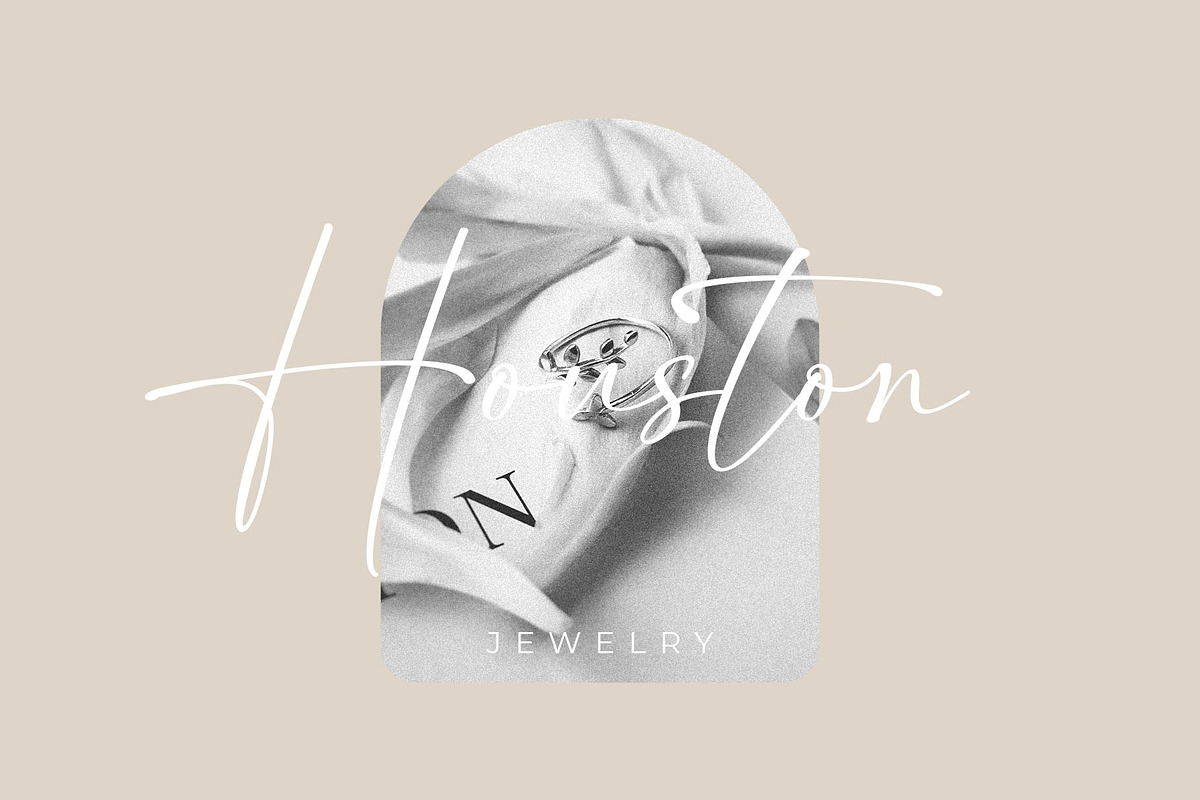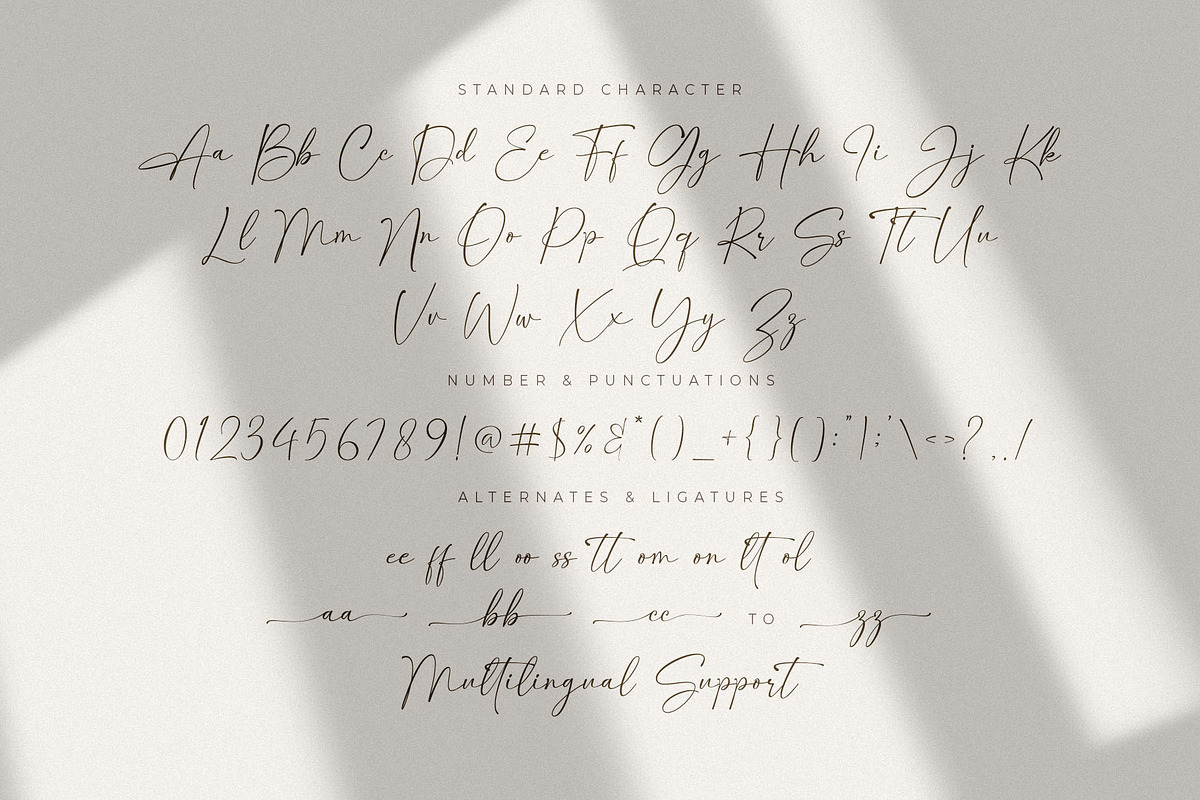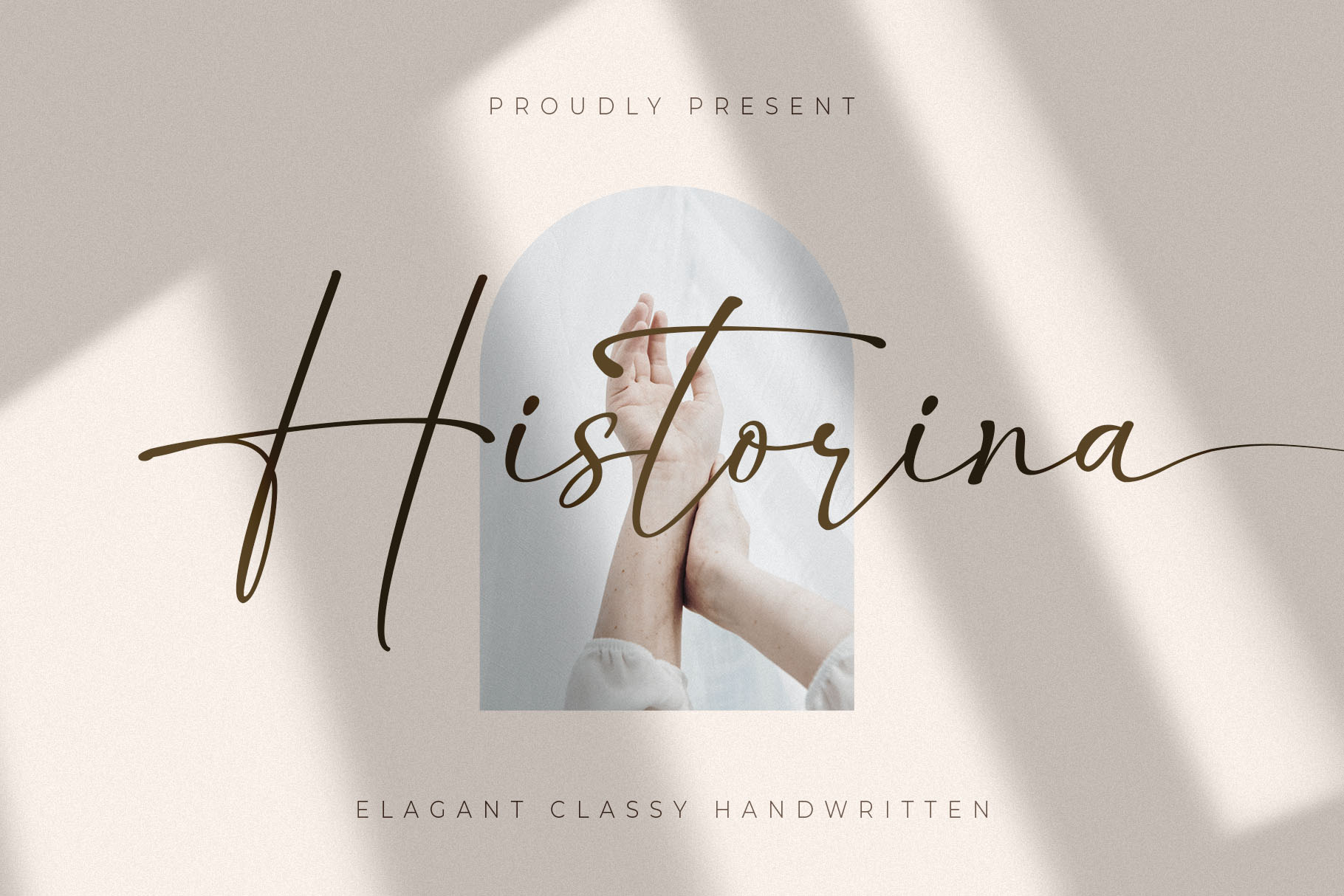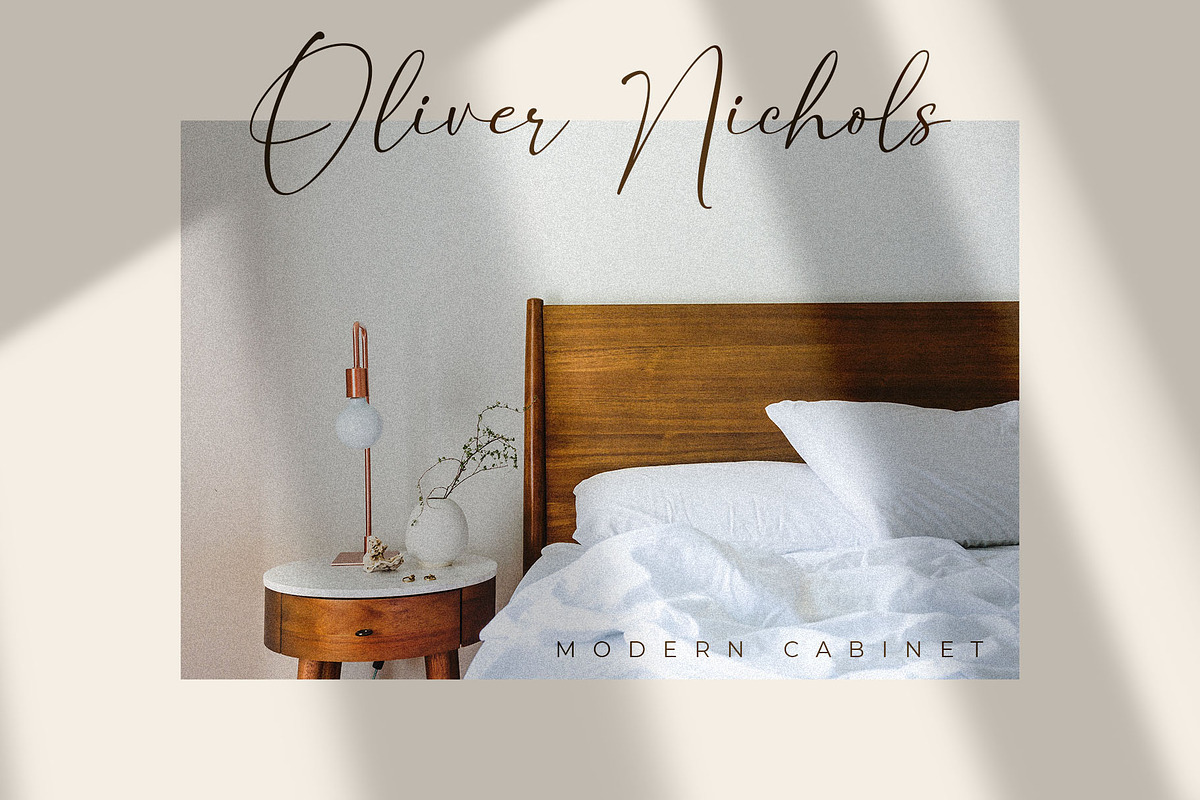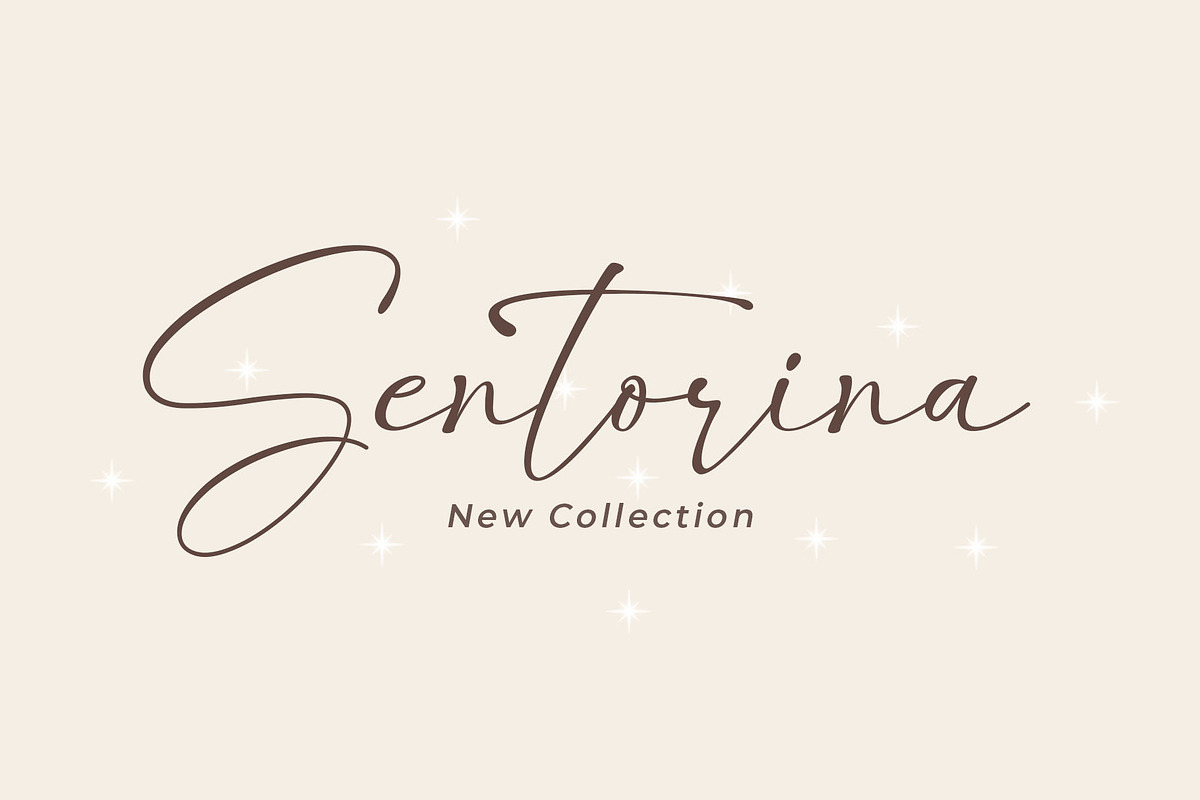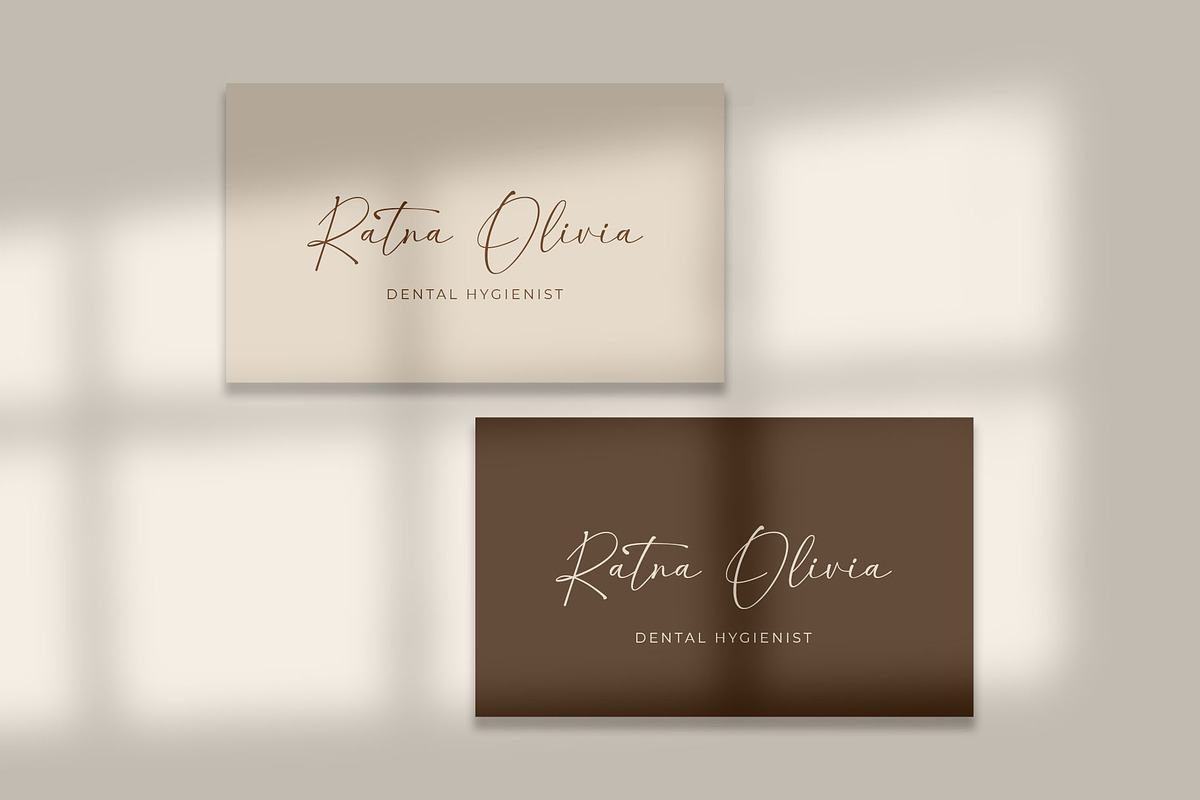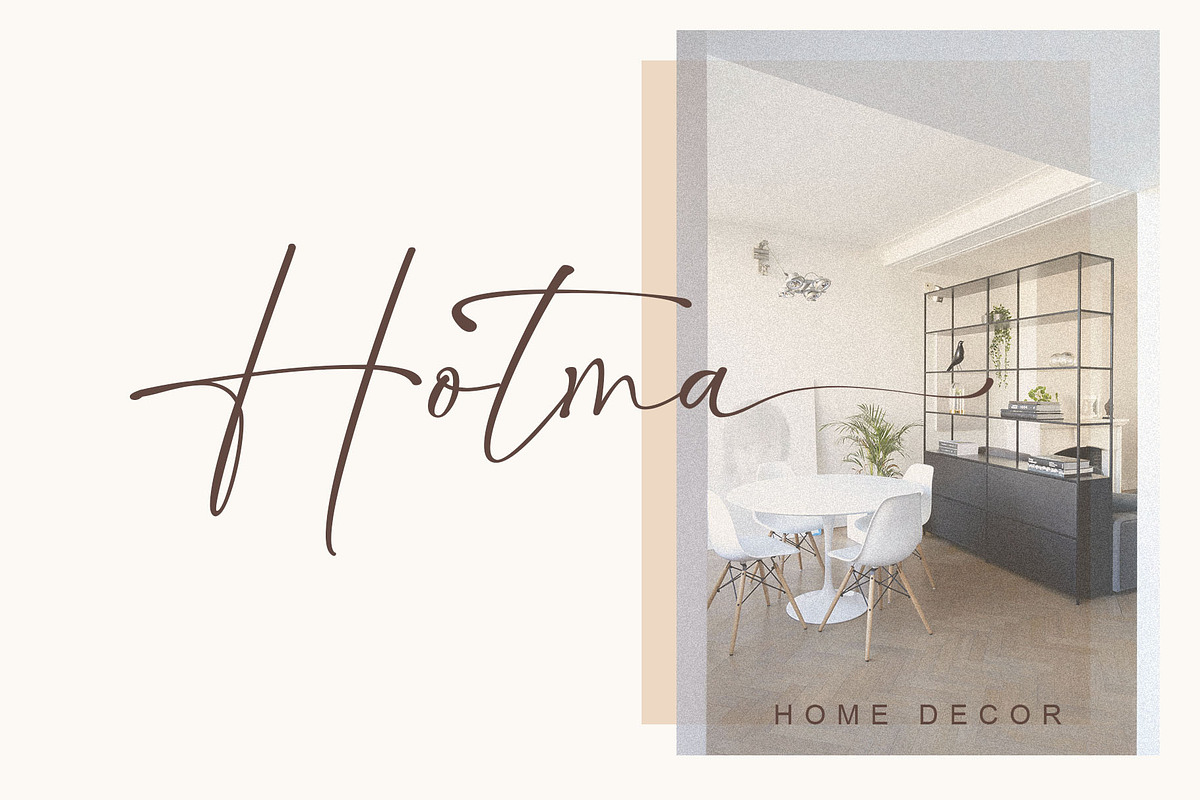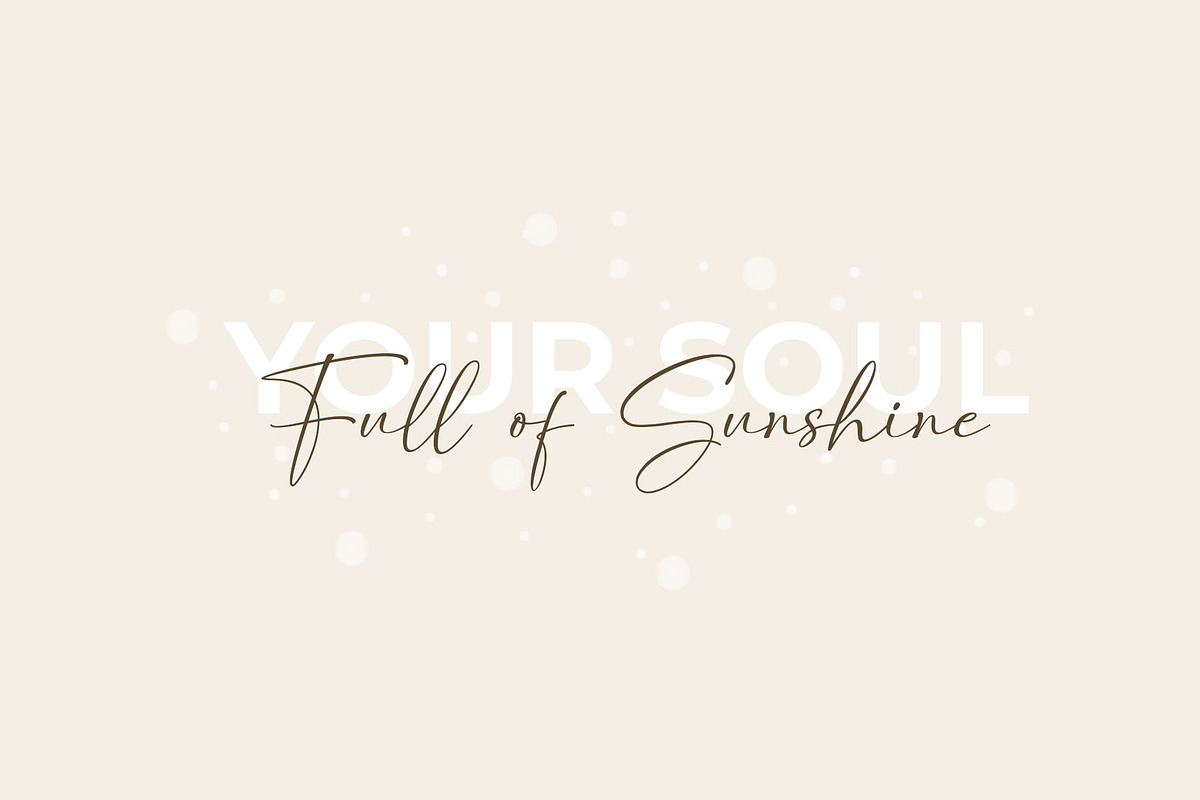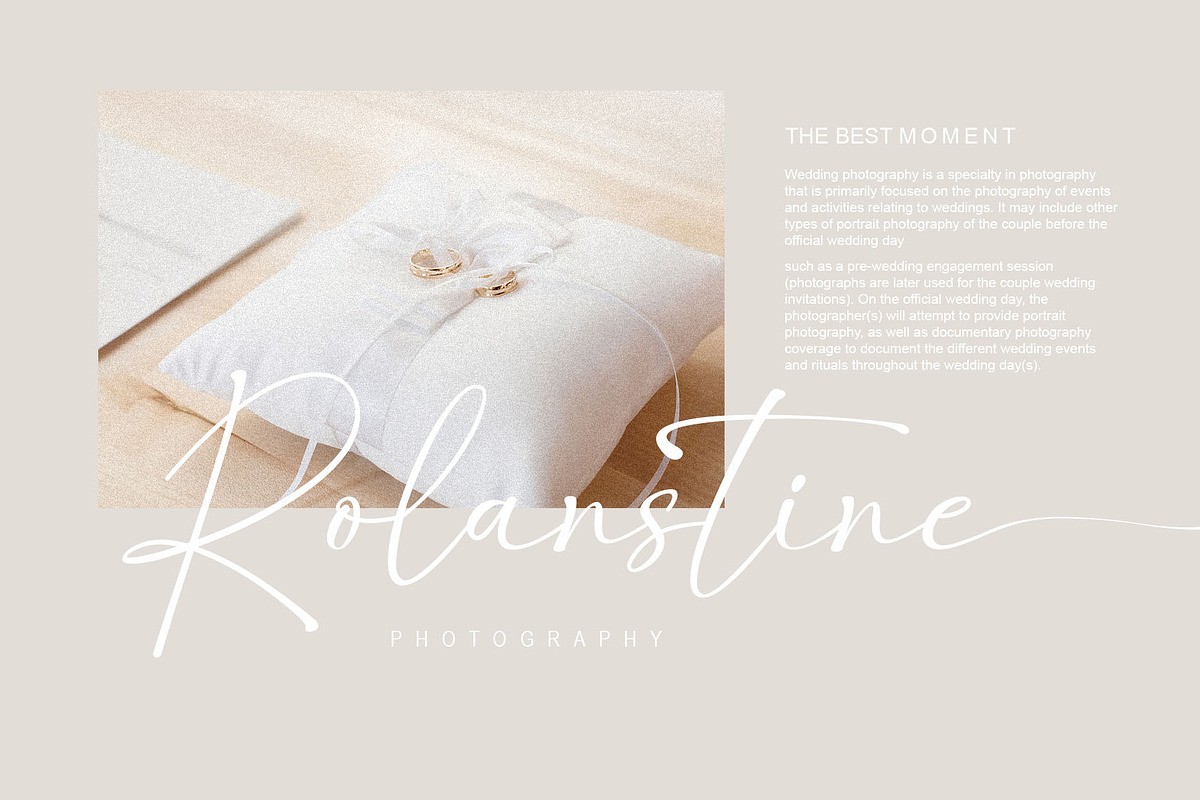
Historina - Elegant Font
Historina is an elegant and classy handwritten script have a unique style of each character, this font is perfect for wedding design, branding, packaging, business card, logo design, logotype, posters, social media posts and other